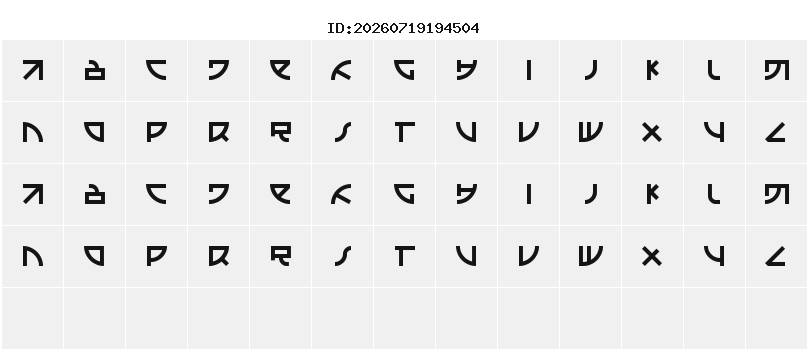
• Font Name: emison
• Font ID: emison:Version 1.00
• Full Font Name: emison
• Version: Version 1.00 November 13, 2005, initial release
• PostScript Name: emison
About emison.ttf
emison.ttf is a modern, elegant sans-serif font designed for ultimate readability and visual harmony. Perfect for branding, headlines, web design, and print materials.